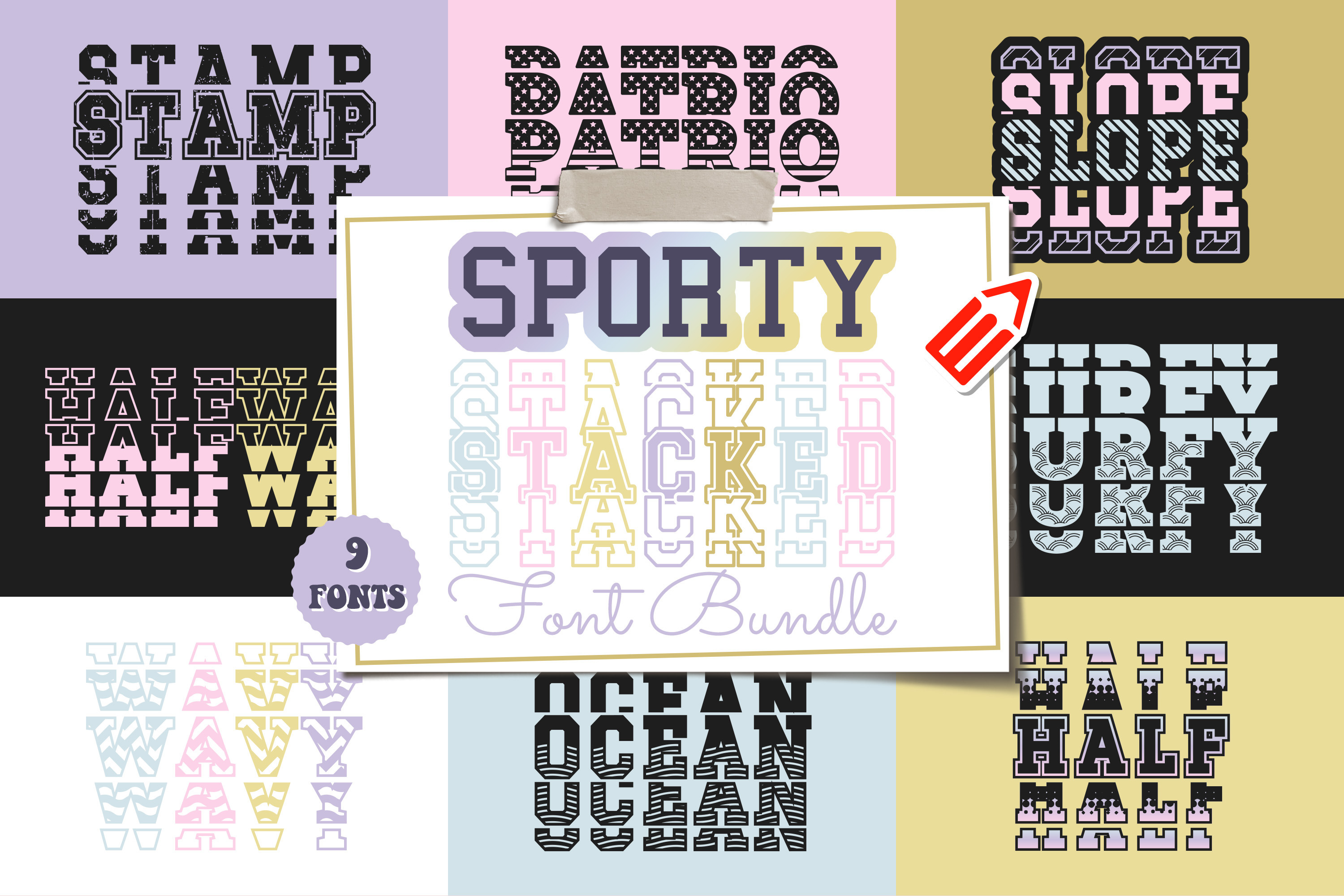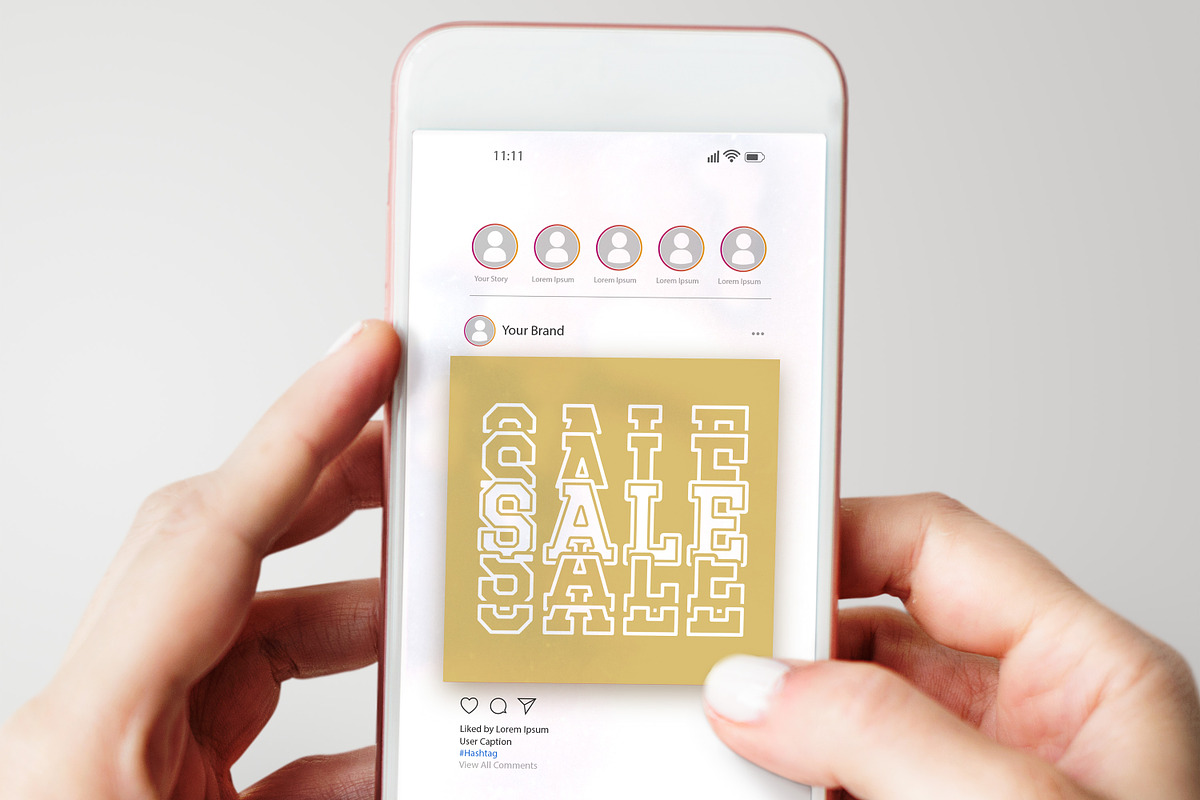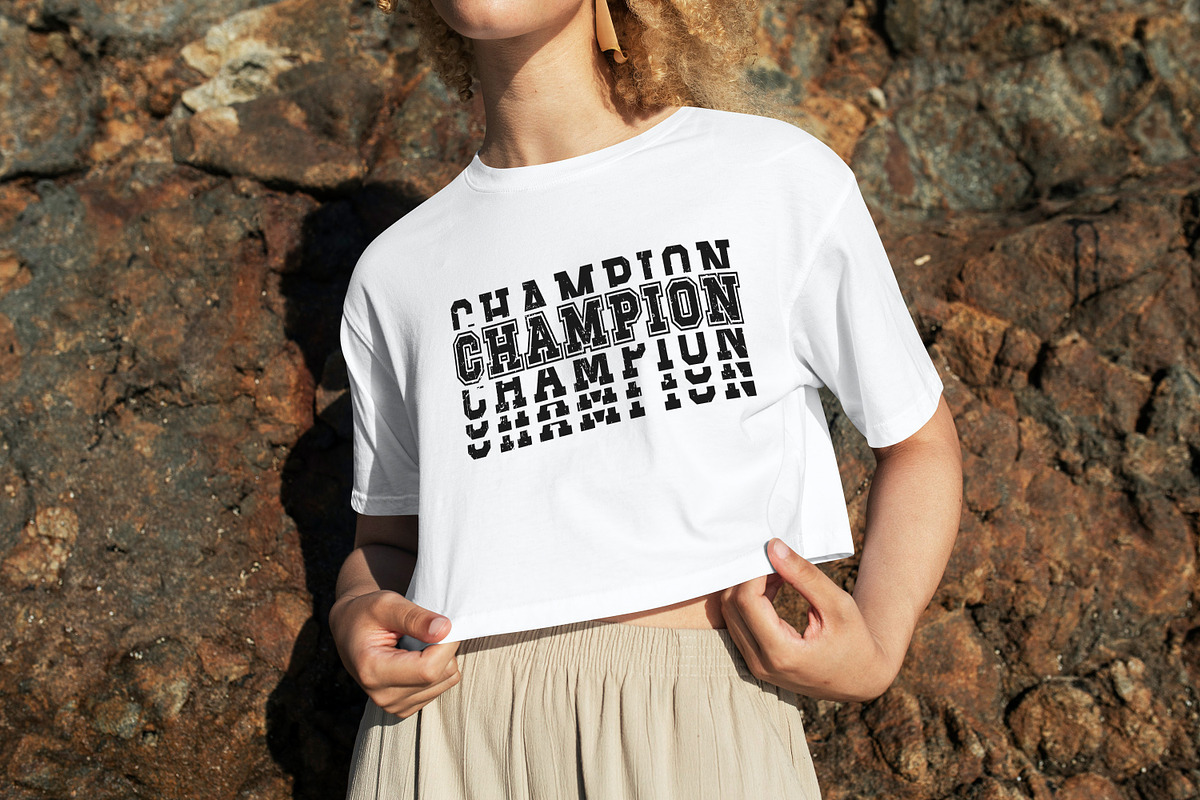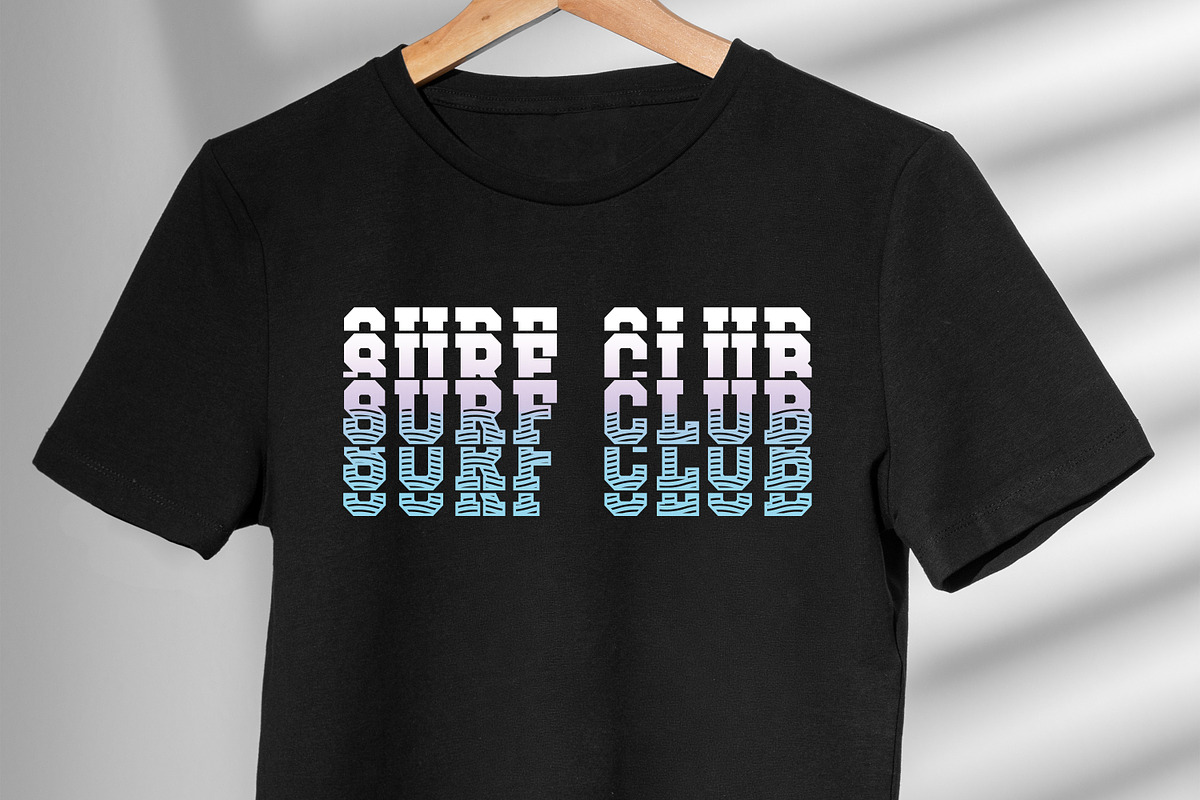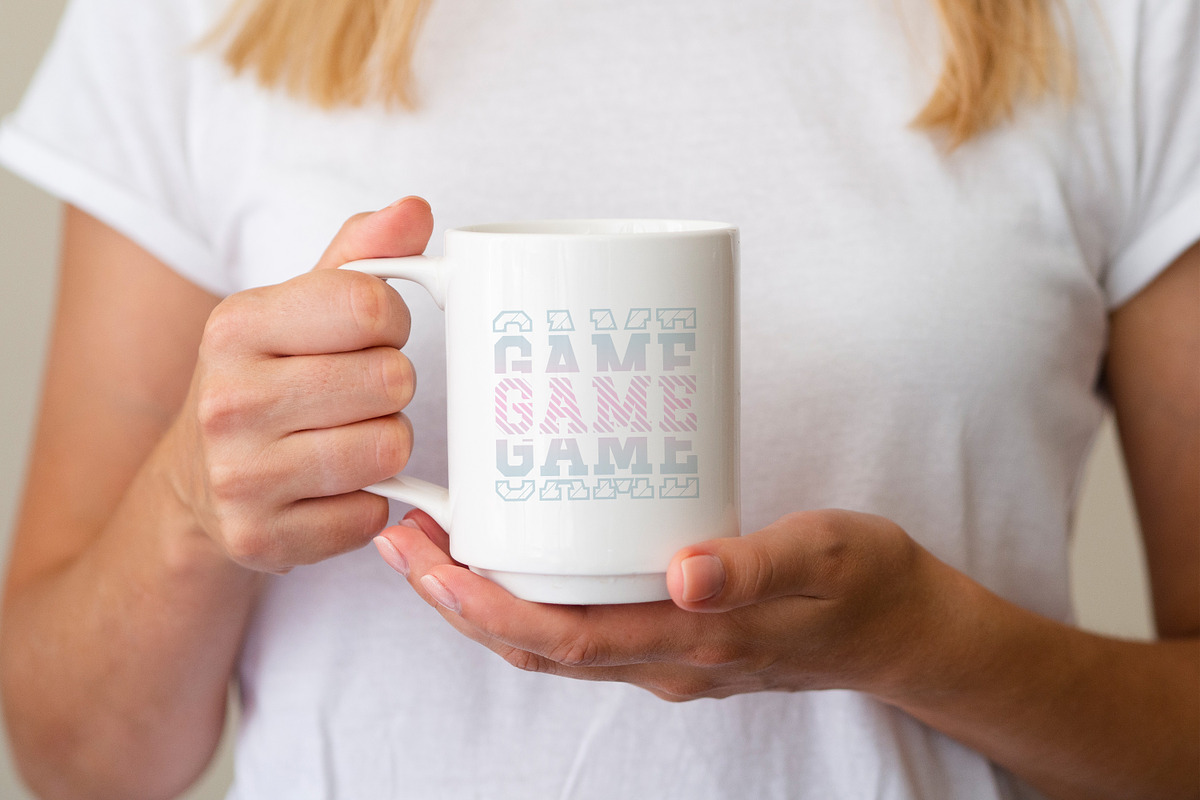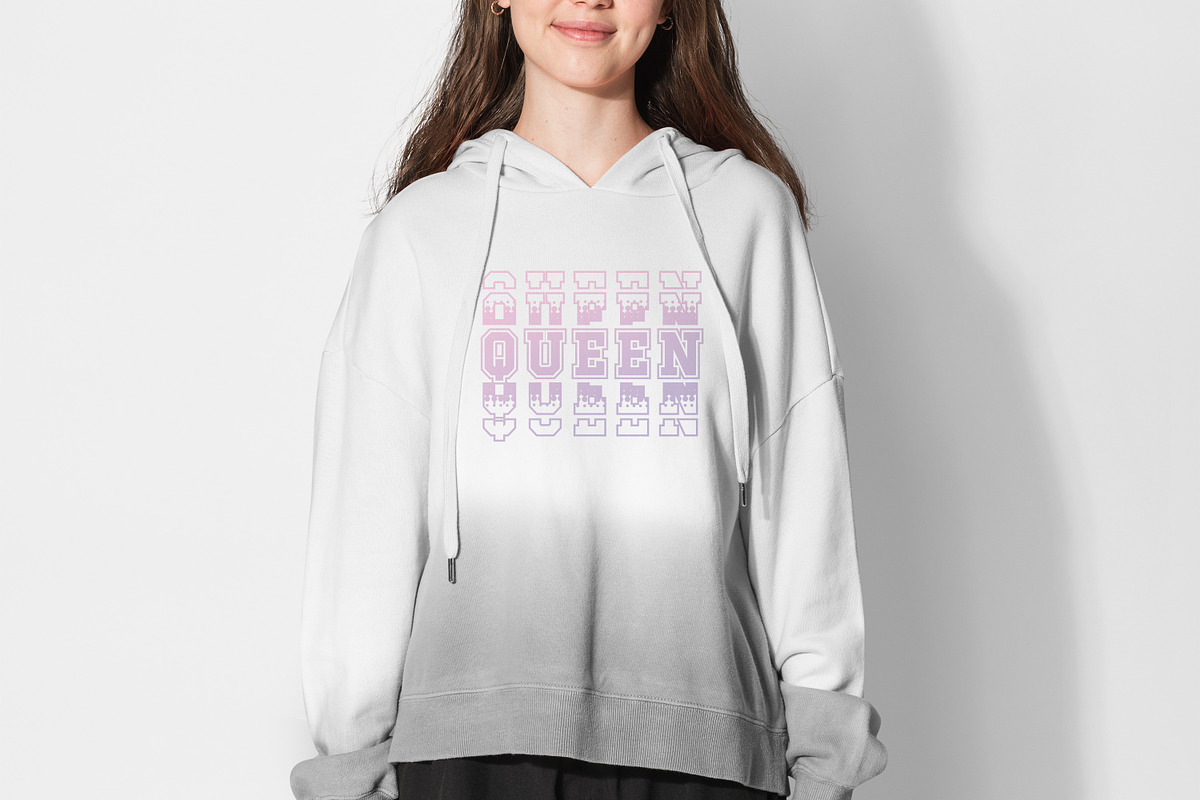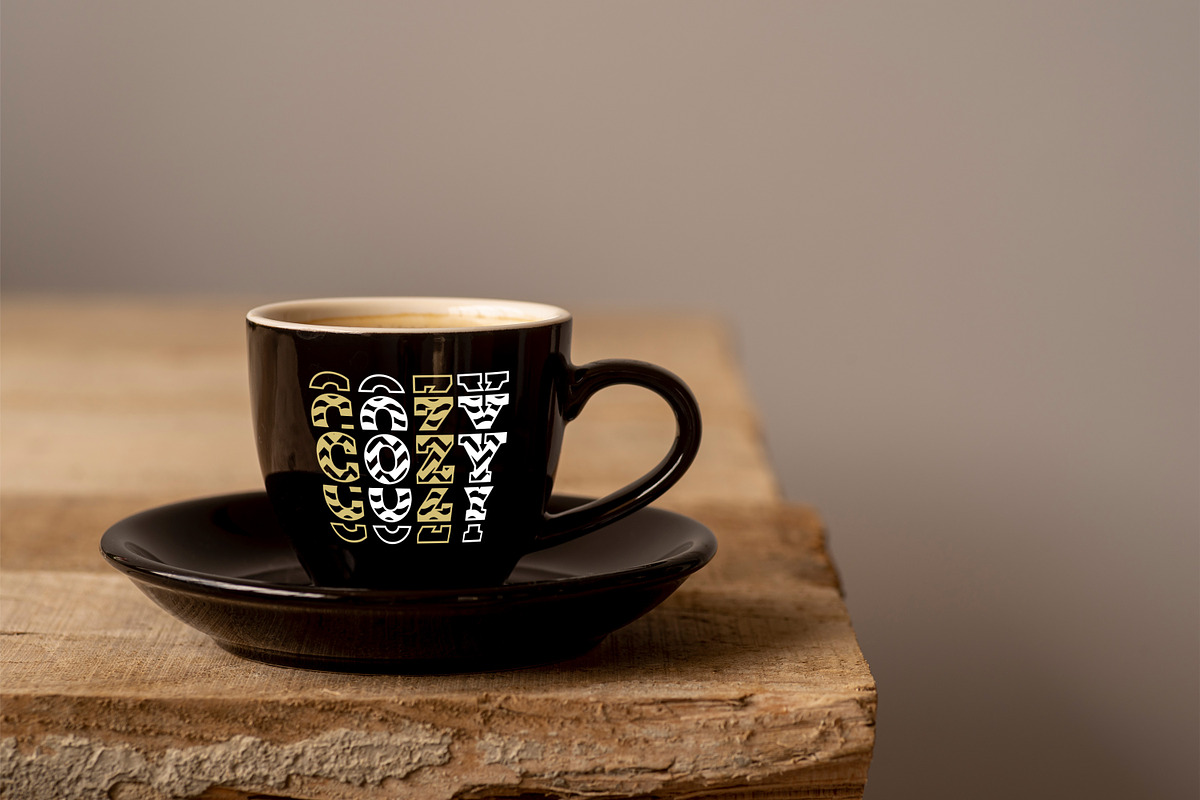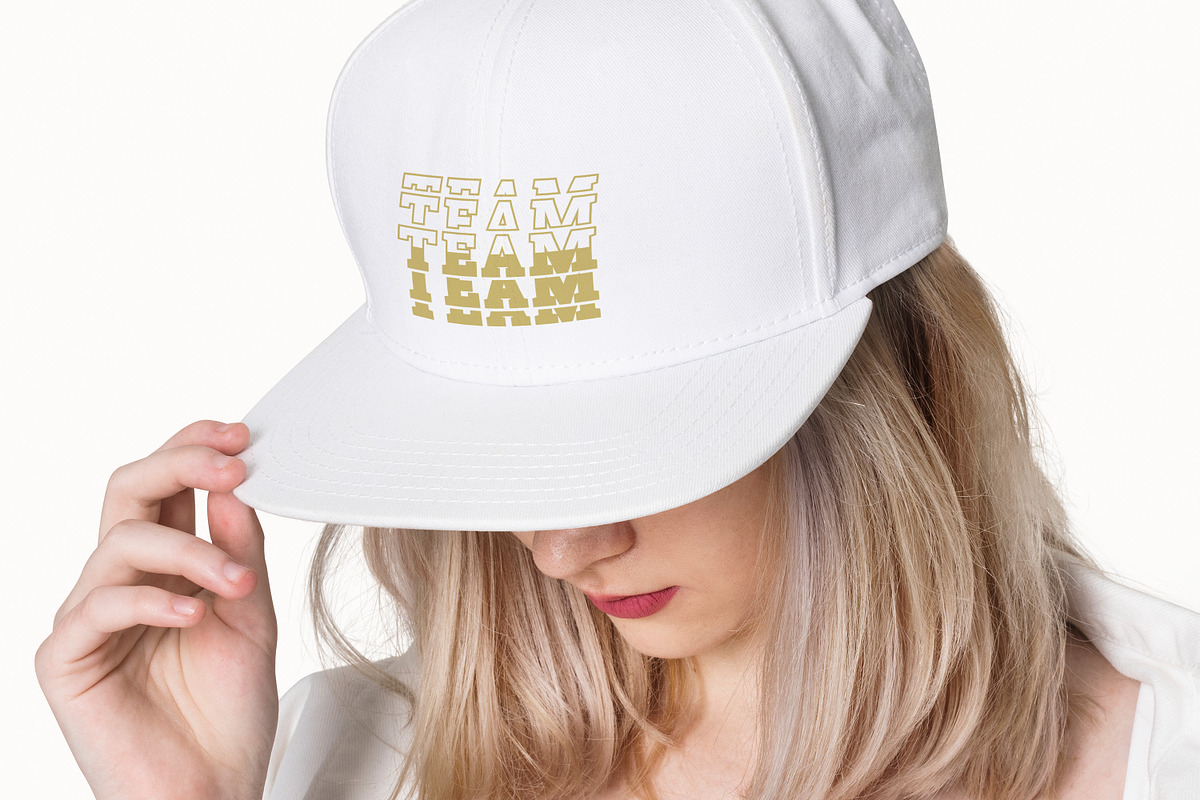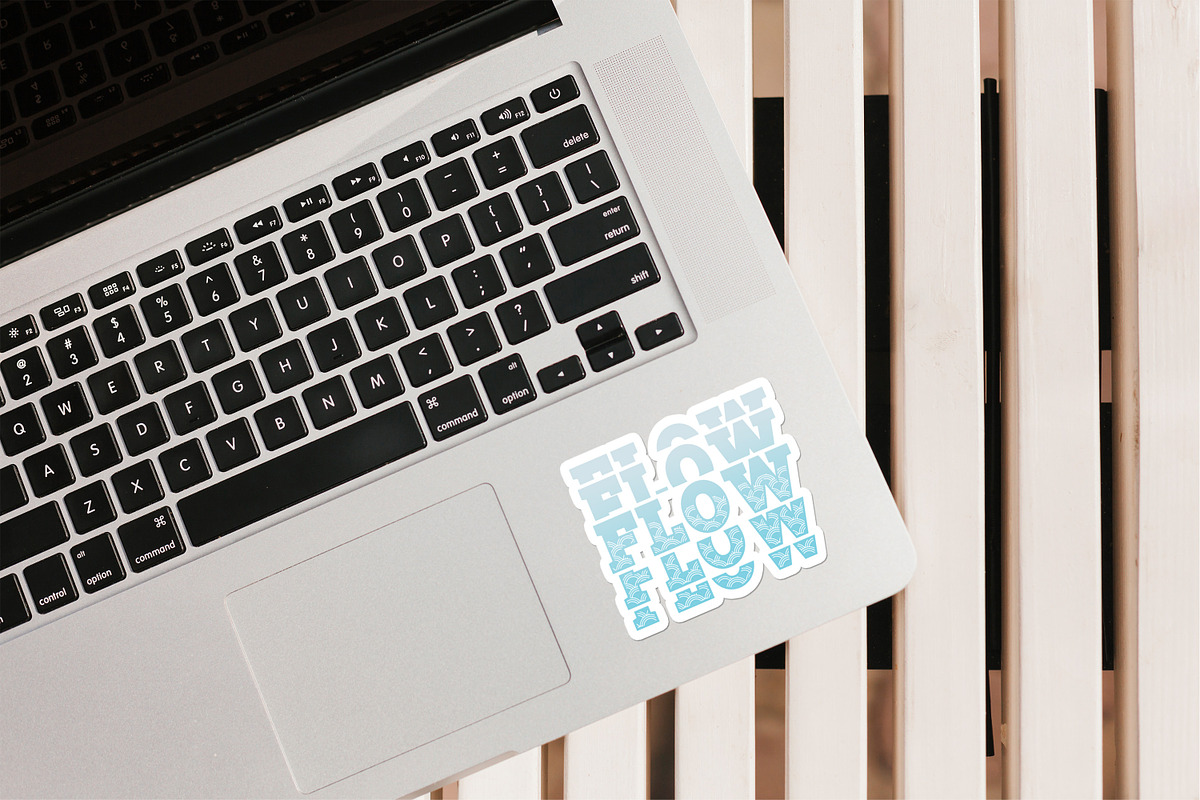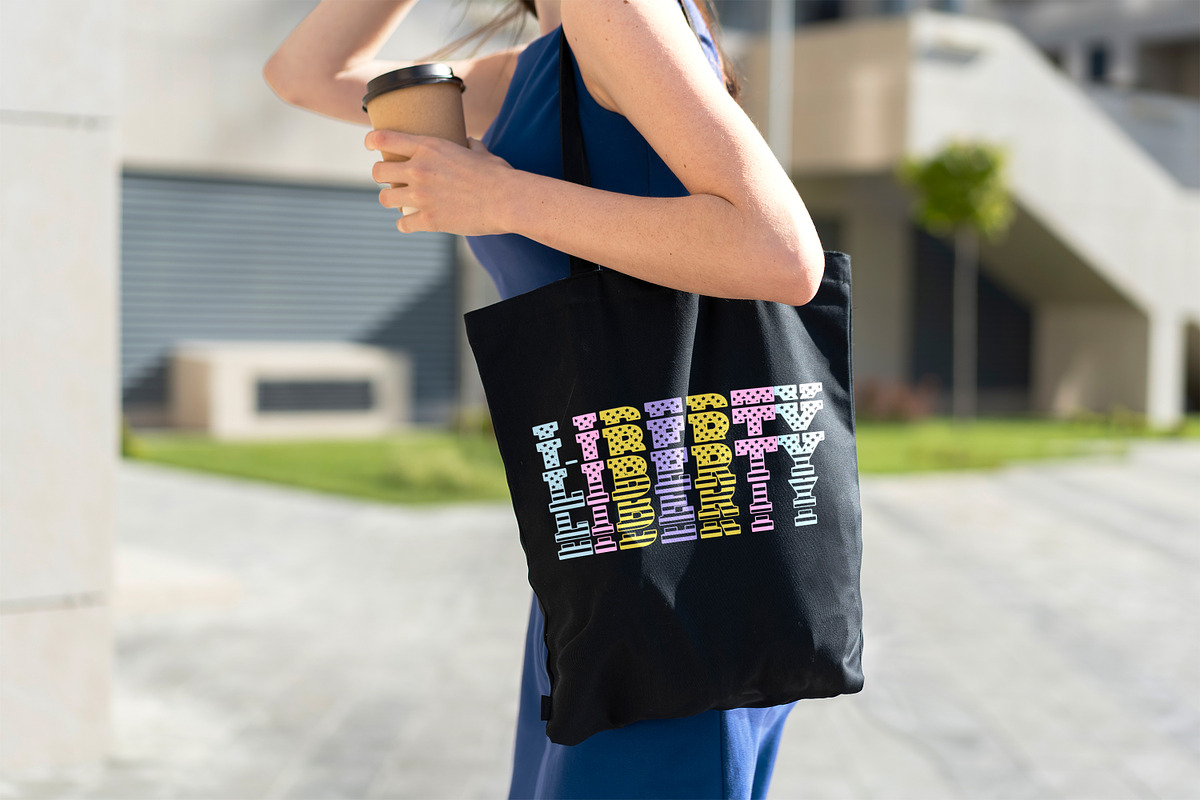
Sporty Stacked Font Bundle
Sporty Stacked Font Bundle is here with an incredible selection of 9 stacked fonts. A dynamic collection that embodies the spirit of athleticism and adds a bold, energetic touch to your designs! This exciting bundle features Sporty Fonts designed to capture the power and passion of sports. With a variety of styles and letterforms inspired by various athletic disciplines, this bundle is perfect for creating impactful team logos, spirited event promotions, and dynamic sports-themed designs. Whether you're designing for a professional sports team or creating motivational workout posters, our Sporty Stacked Font Bundle will infuse your projects with the energy and excitement of the game. Get ready to score big with our Sporty Stacked Font Bundle - where passion meets typography for a winning design!
Included in this pack: Half Halfway Ocean Overlap Patrio Slope Stamp Surfy Wavy